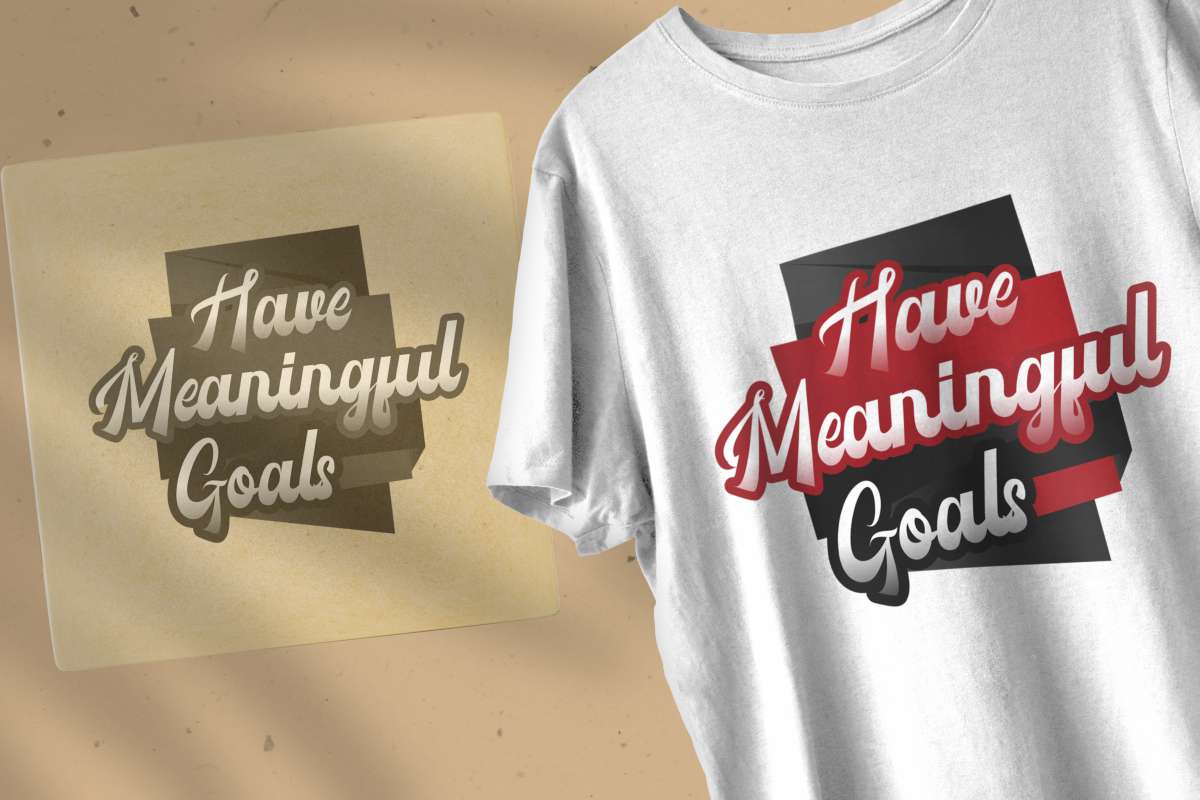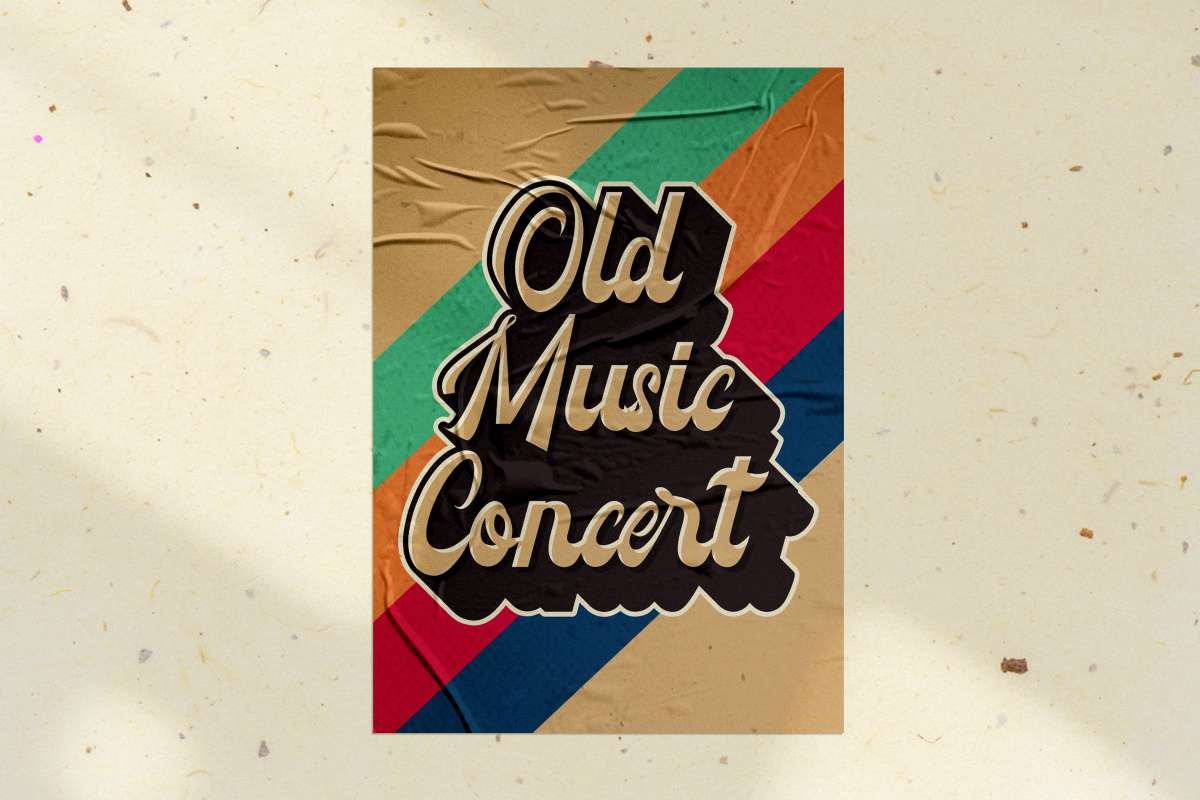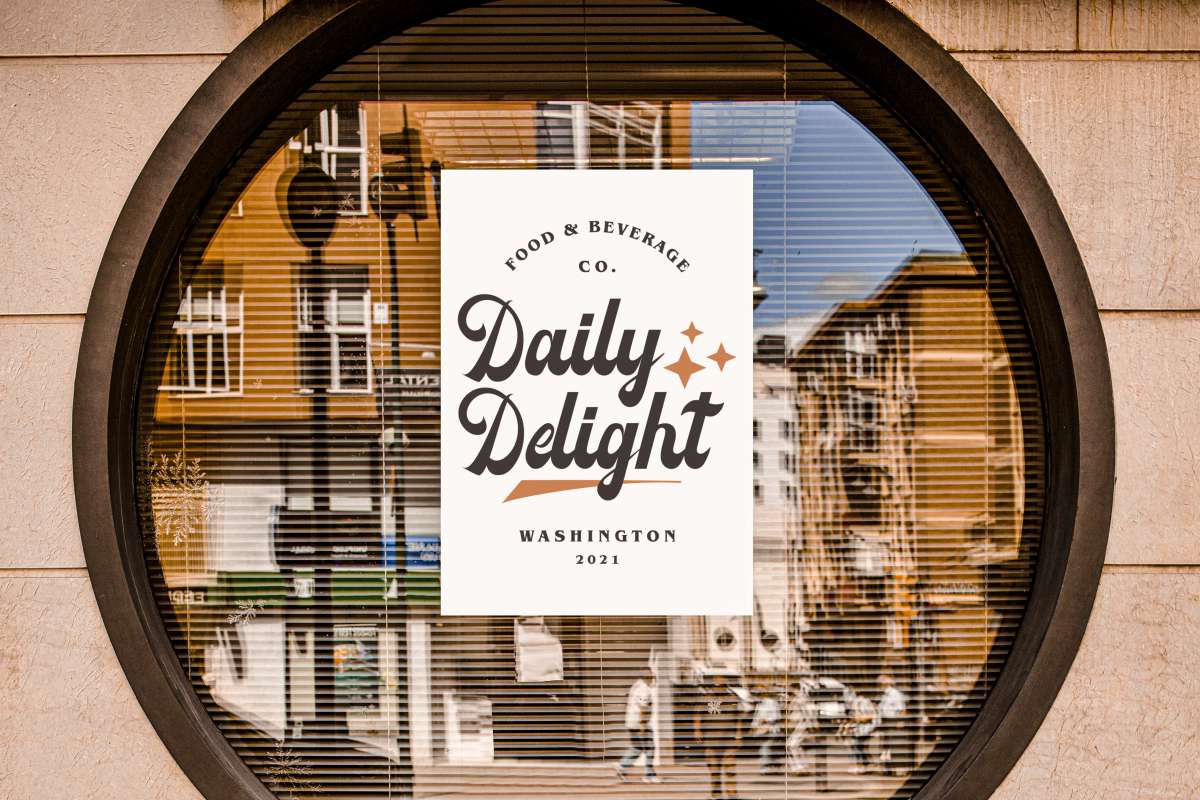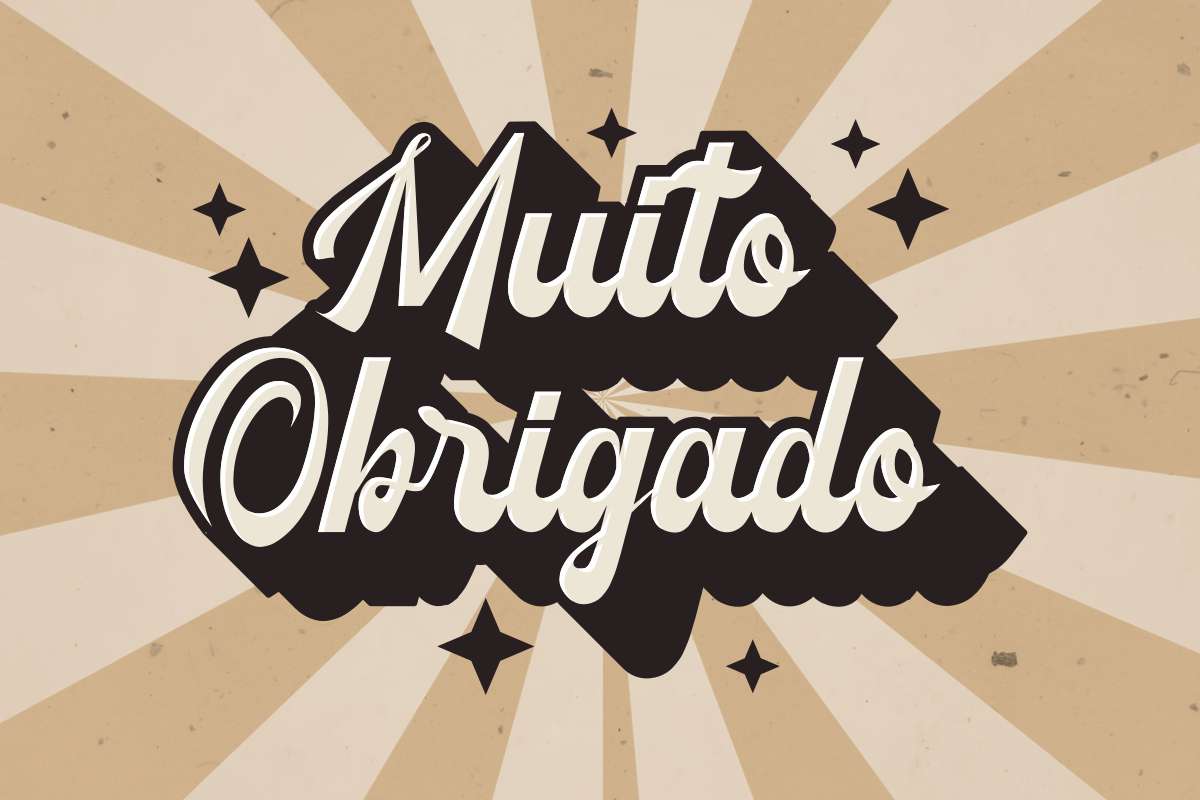
Carbondale Font
Carbondale Font is a retro brush font made by NoahType. This font will add a personal handwriting look twist to any design project. This font is crafted carefully in every its single scratch, created to look as close to a natural handwritten script so that it can create the perfect combination on each glyph. When we make this font, we really want to create a touch that is so free-flowing that it gives a natural impression on its use later. For example, if you want letter ‘s’ that has a flow sketch with letter ‘t’, you can find it in ‘st’ ligature glyph (just type in the text form below for trying). This brush font is for anyone who are needing of personal stylish for their designs.